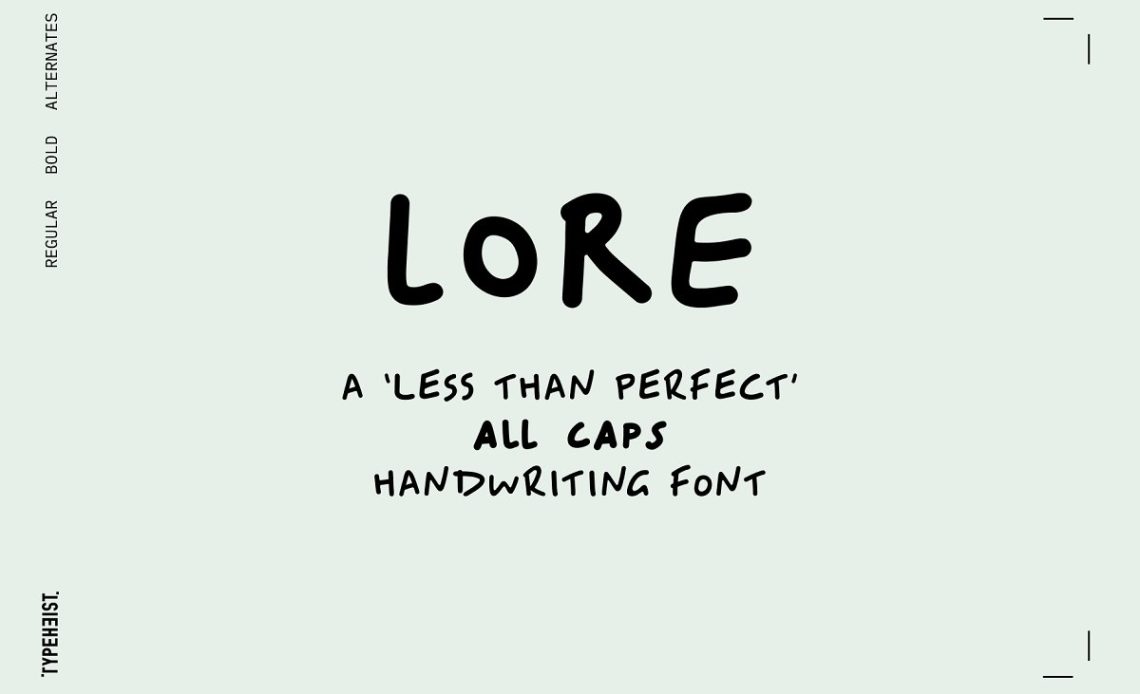
Introducing LORE, the Best Font for Capital Letters created by Laura Eddy. LORE is not your typical handwriting font - it's a less than perfect, all caps handwritten font that adds character and charm to any design. The O.G. font is made from Laura's actual handwriting, so you can be sure that it's unique and authentic.
But why choose LORE over other fonts? First, it's a great font for headers and titles, making it perfect for branding, social media posts, and any other creative design project you can imagine. Second, it's not supposed to be neat, align or be uniform in any way. This makes LORE stand out from other handwriting fonts that try too hard to be perfect. With LORE, you'll get a charming, one-of-a-kind look that's sure to catch the eye.
Overall, LORE is the perfect font for anyone looking for a unique, eye-catching, and authentic all caps handwriting font. With its imperfections, charm, and character, LORE is sure to elevate your designs and make them stand out from the crowd.